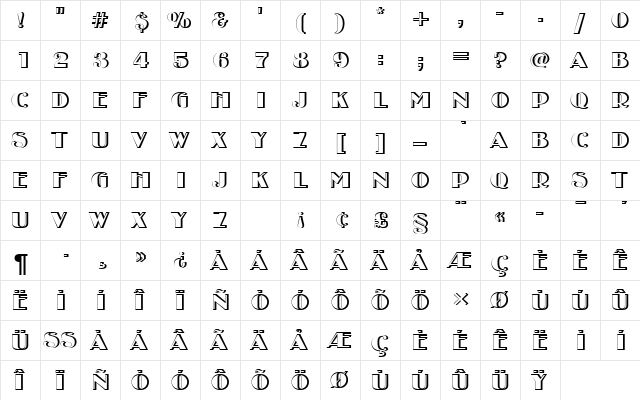
BinnerDRe1 Regular Font Preview
BinnerDRe1 Regular
Design Context for BinnerDRe1 Typeface
BinnerDRe1 is a composed and adaptable typeface that performs quietly and consistently across a wide range of design contexts.